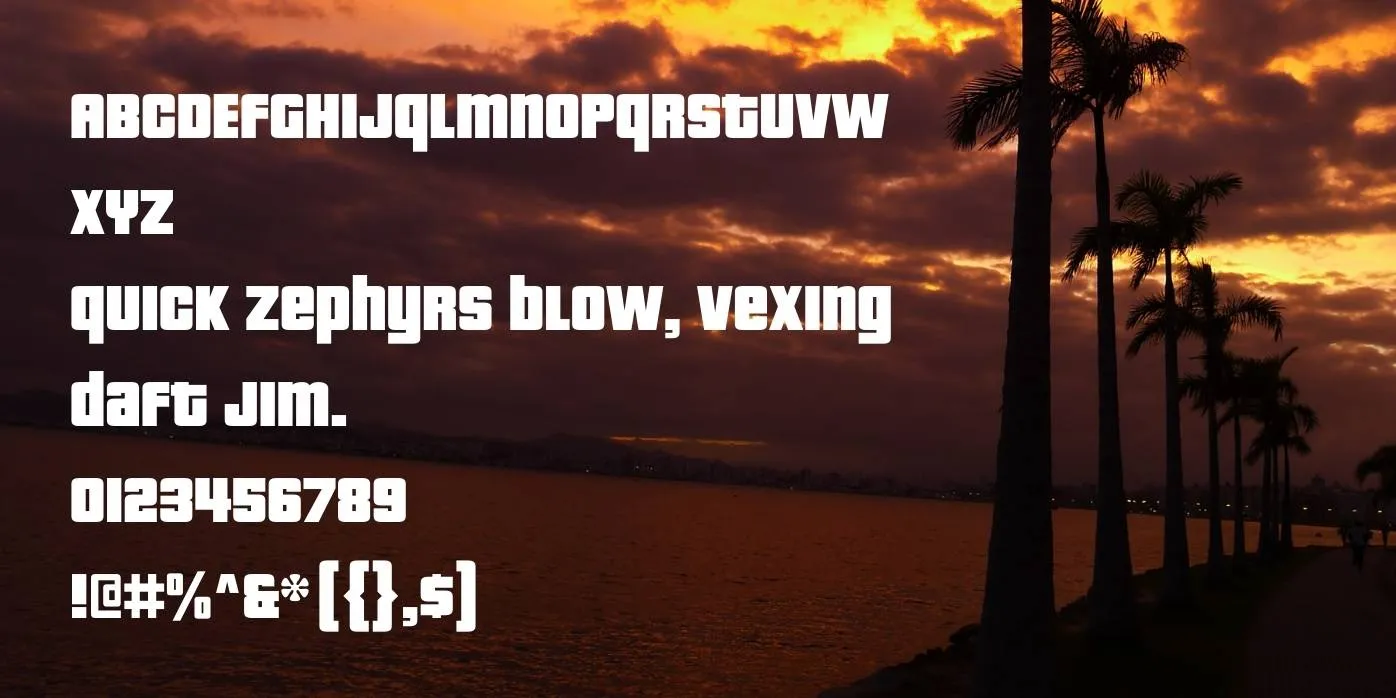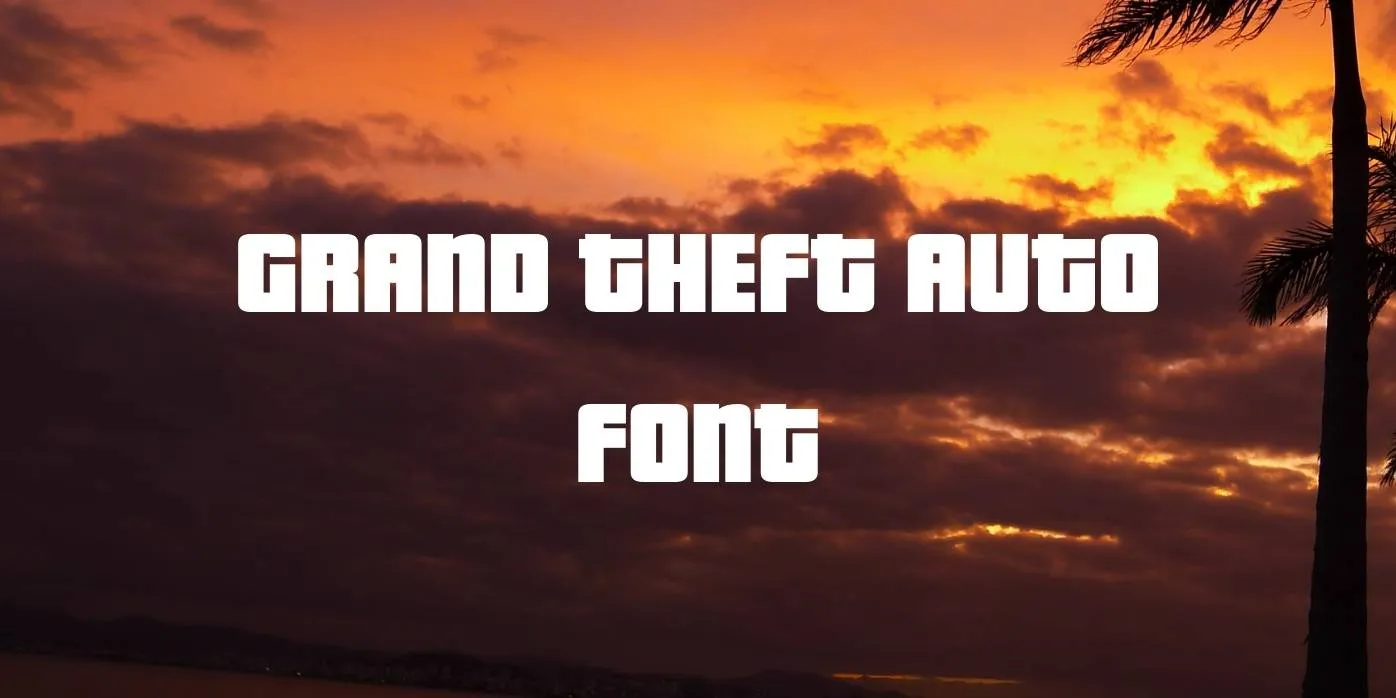
Grand Theft Auto Font
Grand Theft Auto Font is an action-adventure game series. It is the most famous and popular game in 1997. It performs different tasks in the game like band robberies etc. This font was designed by a famous designer Typodermic Fonts.
It is the most unique and popular font all over the world. It belongs to display typeface. A decorative logo is used for the best performance in the video game series. This logo is used after the Grand Theft Auto series.
This typeface is best for helping in official work and educational systems. You must use this classy and glorious font in all of your functions and fields. This font family provides more character and unlimited features.